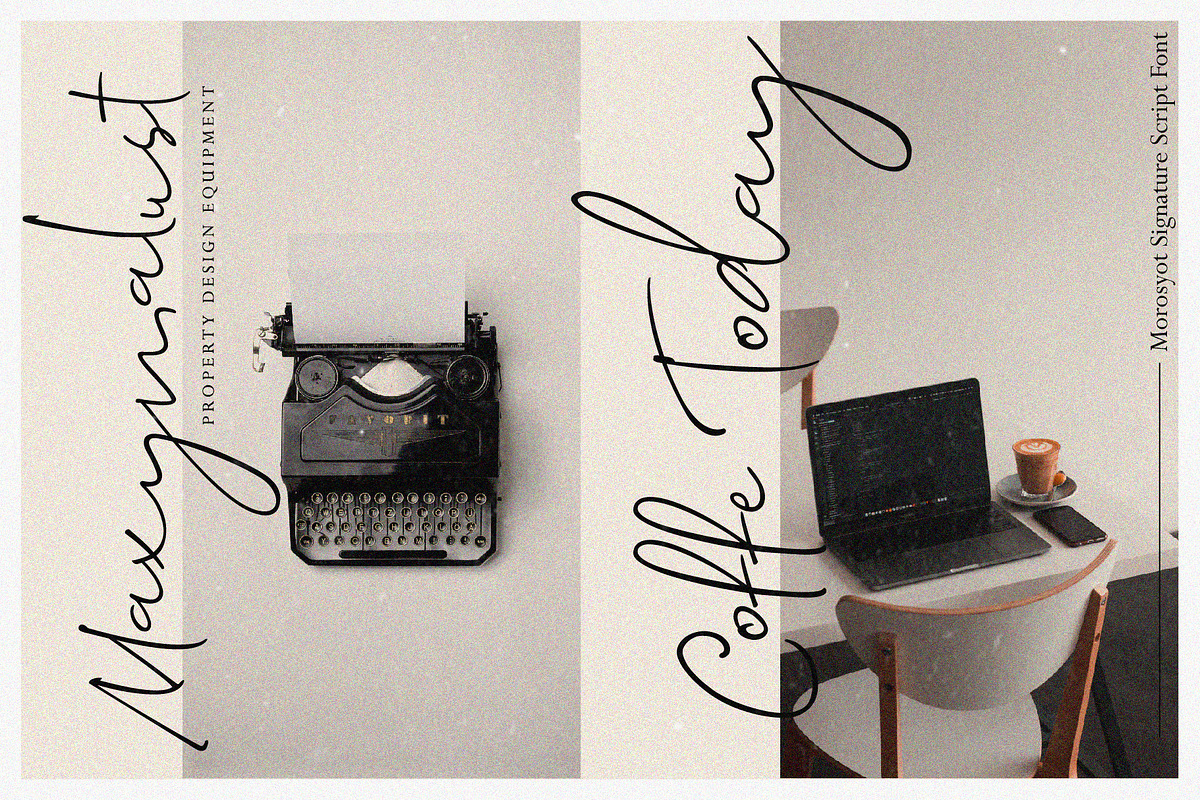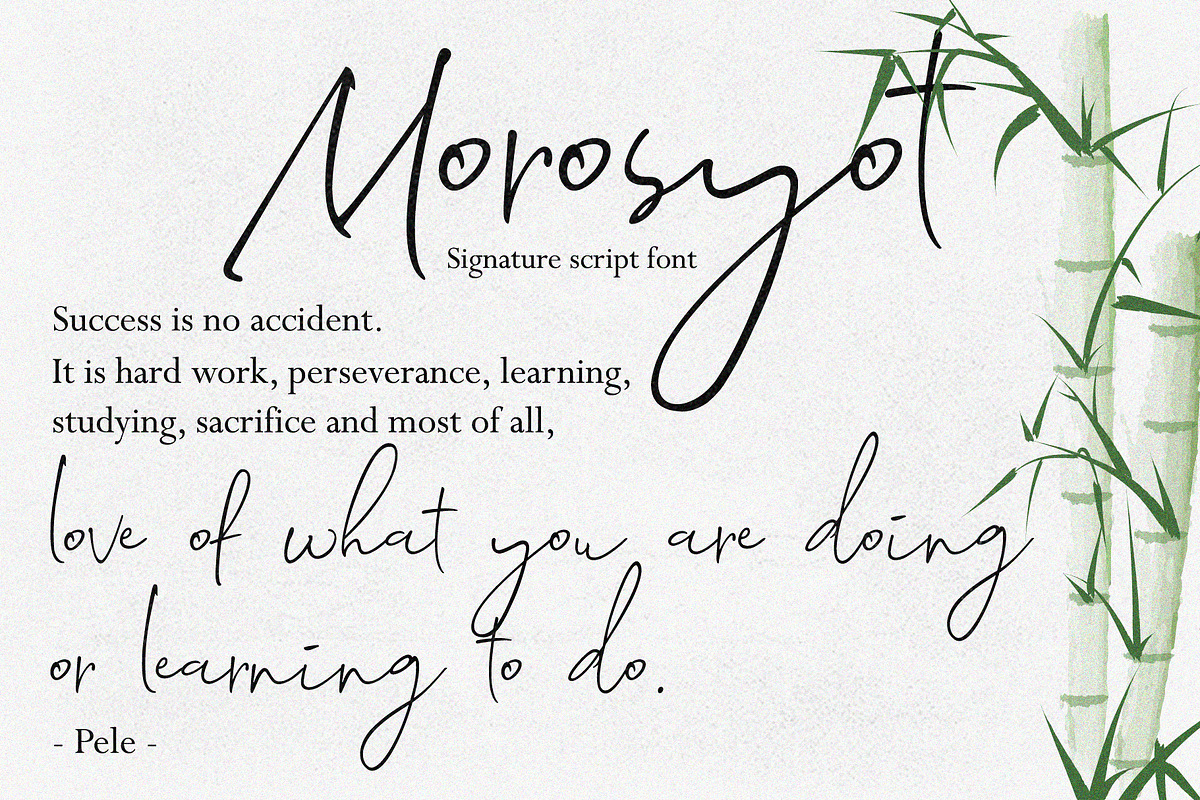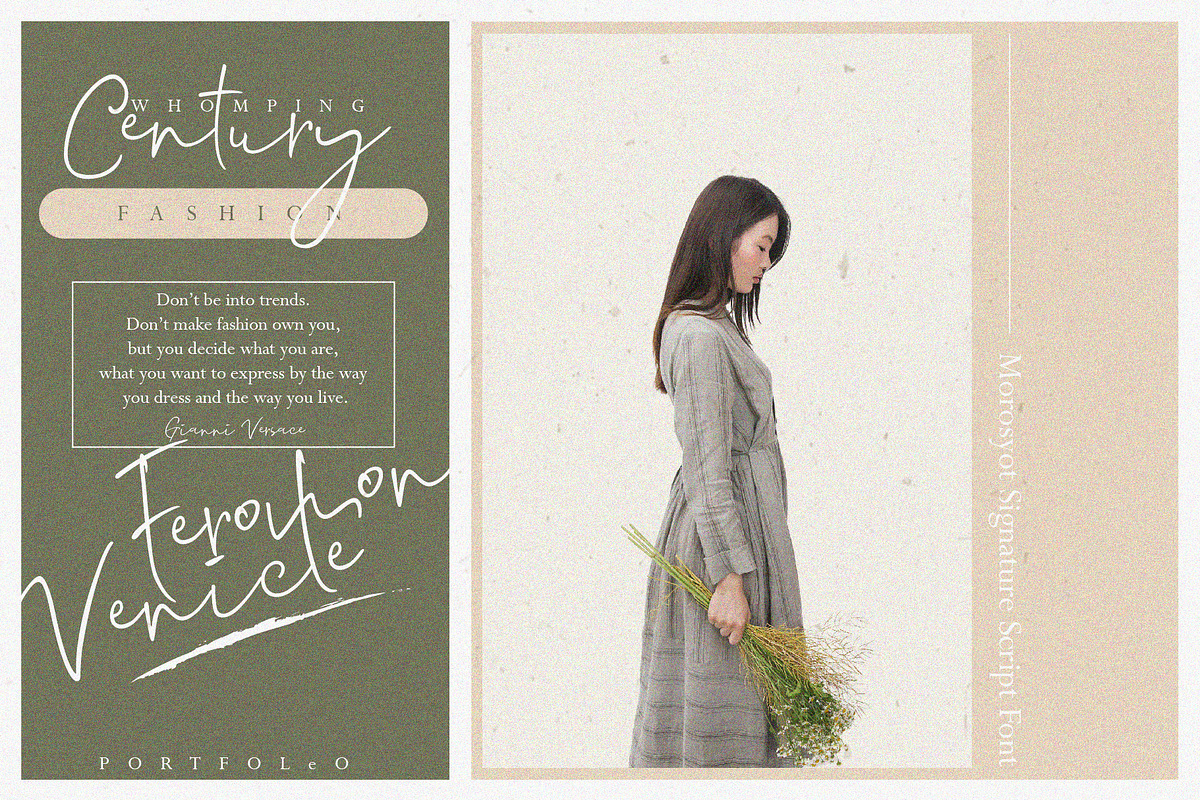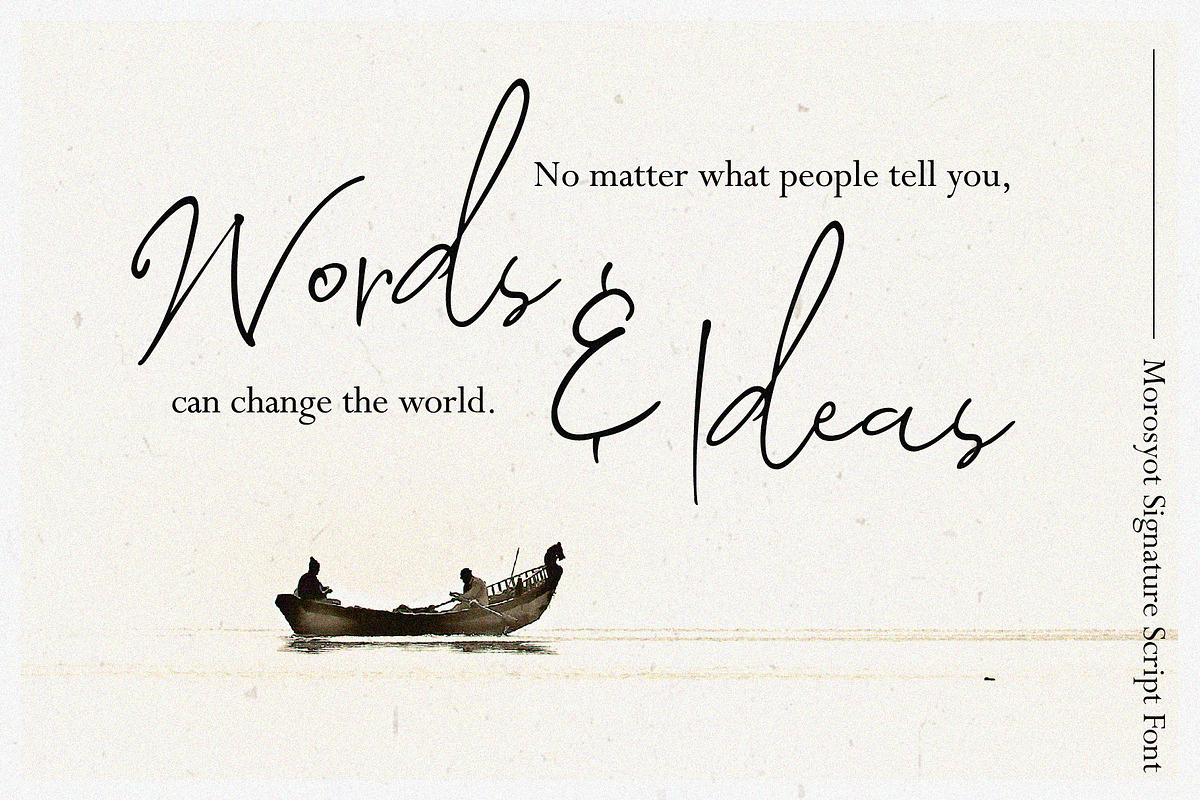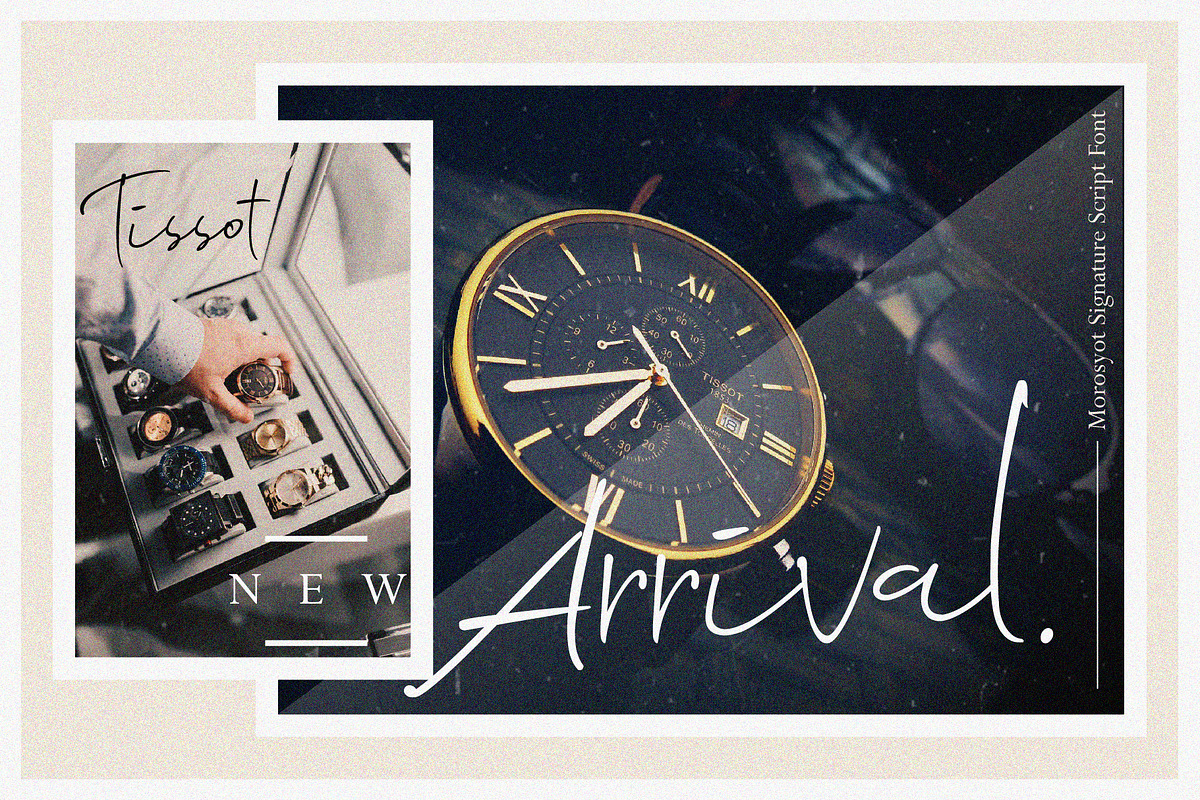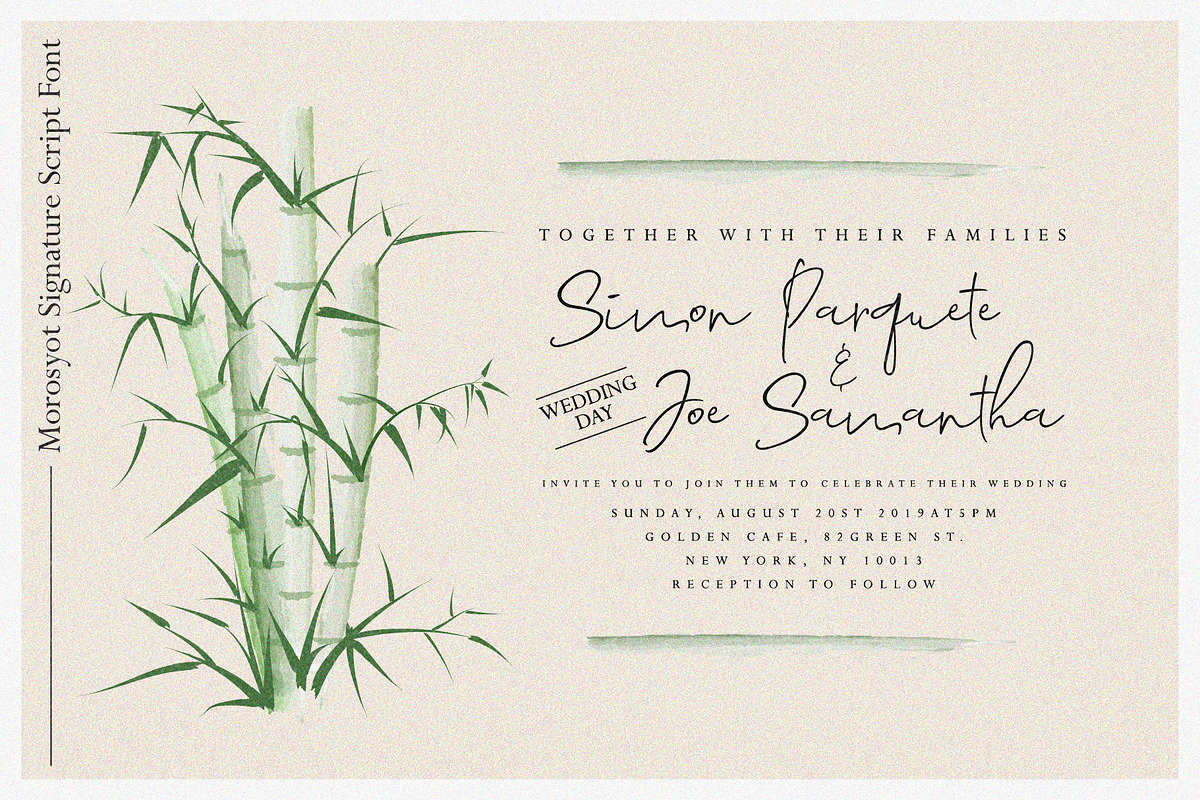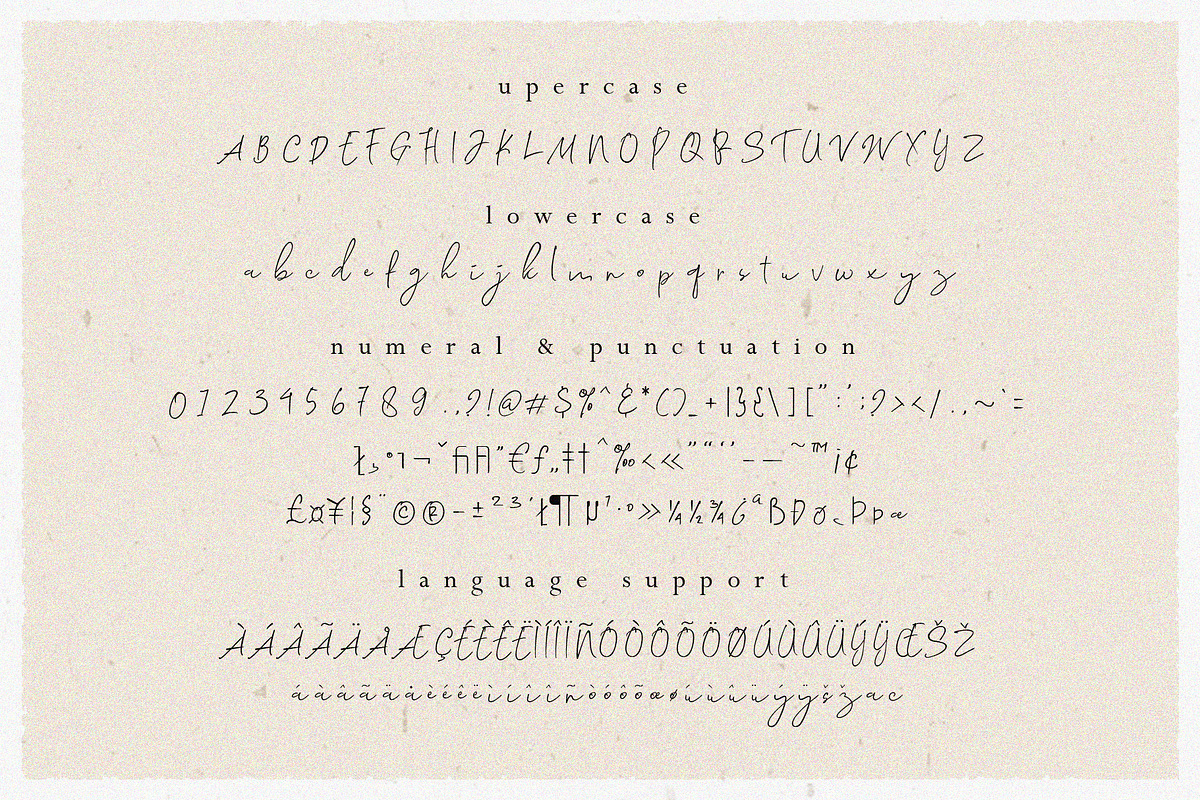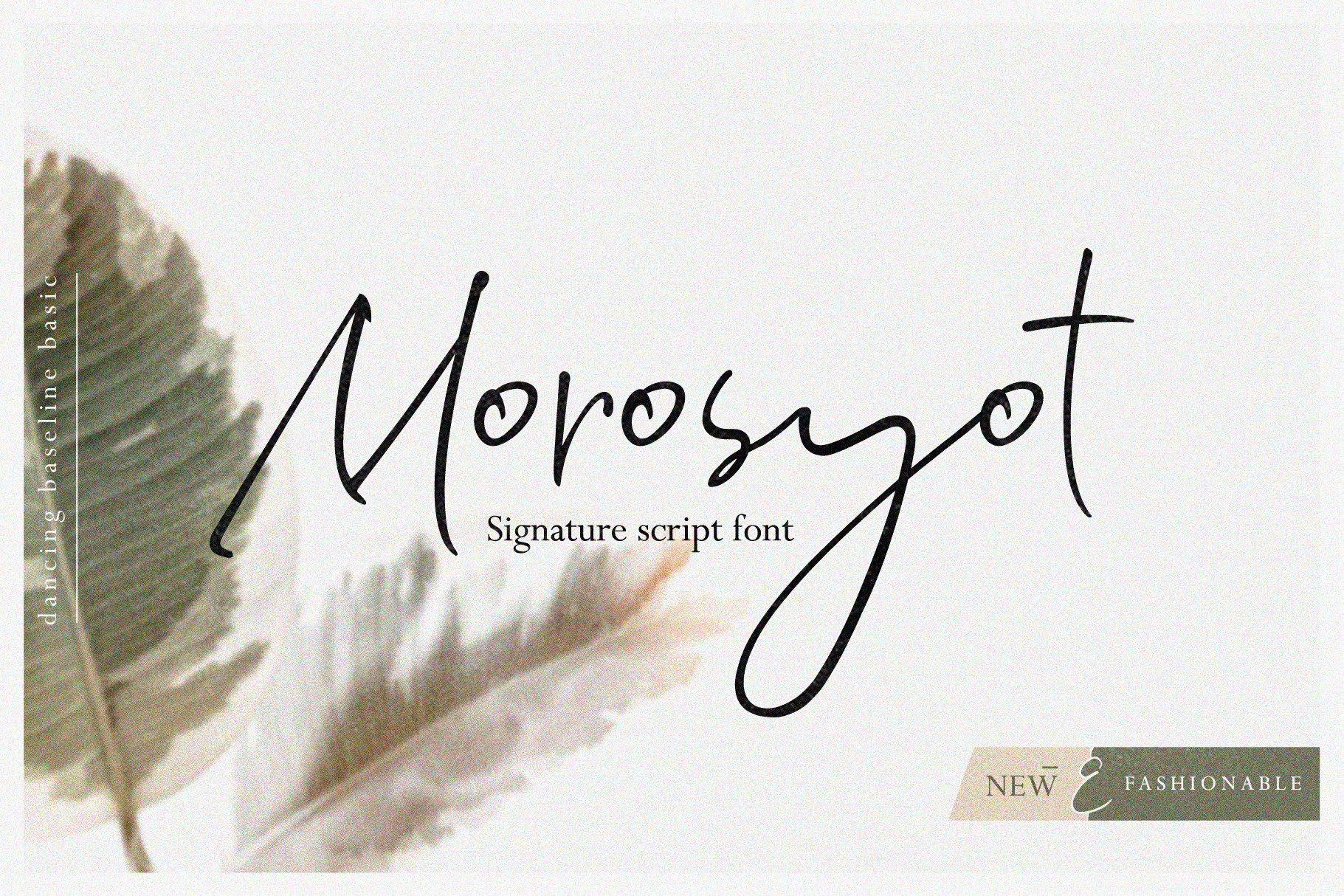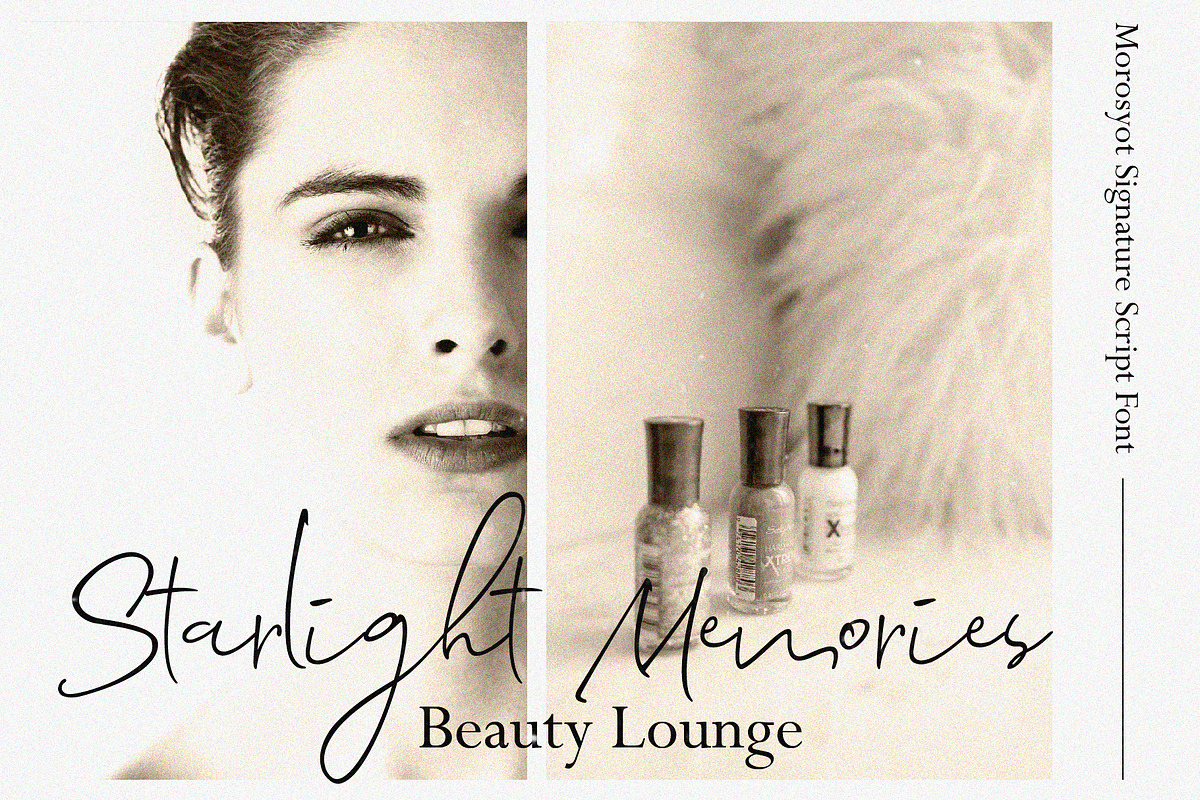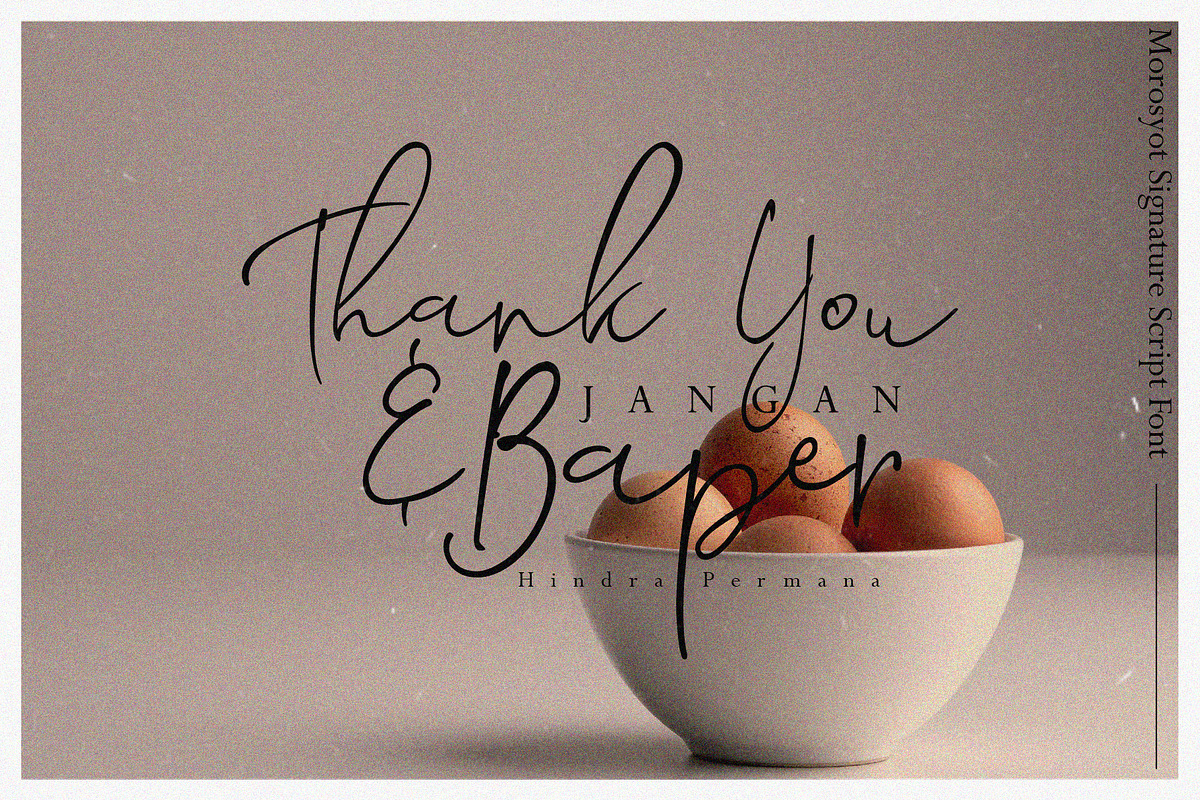
Morosyot Signature Script Font
Morosyot Signature Script
this a fresh design from a new year, morosyot is beautiful script use a dancing baseline basic with elegant touched so make this font is beautiful for any purpose like wedding invitation, logos, poster , website, photography, packaging, etc. morosyot is simple basic script, so i'm not use any ligature inside. With the simple basic you can make a stunning project :) this font is thin, i'm also make a preview on vintage theme for your insipiration.